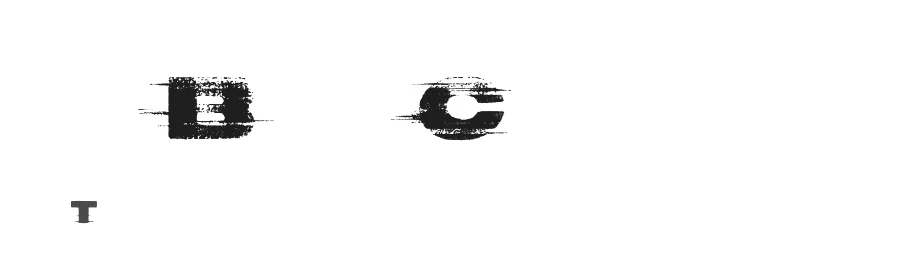
About Pirates Gold Font
Pirates Gold is a decorative font designed by No Images Fonts. It includes 72 glyphs, a regular weight, TTF (TrueType) format, and 89 languages. Pirates Gold is free to download; check the license details on this page before commercial use. Decorative fonts like Pirates Gold work best for logos, posters, packaging, and standout headlines.
Pirates Gold Font is a decorative font that shines as a display or heading face. Pair it with a clean sans-serif or serif font for body text β the contrast creates a clear hierarchy while the two styles stay balanced and easy to read.
Pirates Gold Font
Pirates Gold Font is a decorative typeface by No Images Fonts, ideal for logos, invitations, branding, and creative projects.